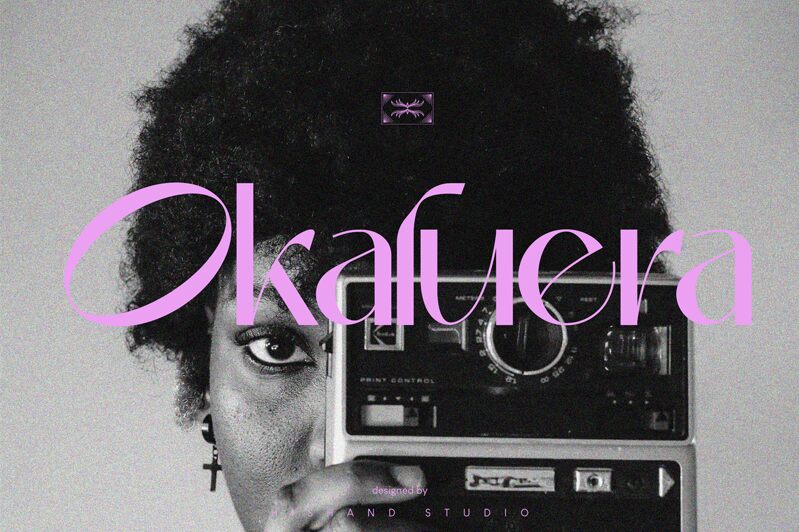
Okaluera font, crafted by Hishand Studio, is a distinctive sans serif masterpiece that exudes elegance and sophistication. Its graceful curves and refined lines make it stand out in any design context. The expanded lettering adds an air of modernity, while its clean edges ensure readability and versatility.
Ideal for branding projects, stylish logos, or editorial design, Okaluera font promises to enhance your creative endeavors with its unique charm. Whether you're crafting a bold headline or designing sleek packaging, this free font offers endless possibilities.